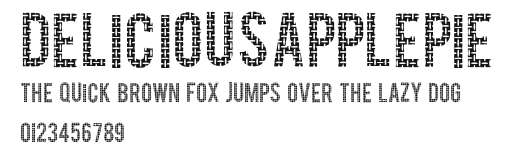
• Font Name: DeliciousApplepie
• Full Font Name: DeliciousApplepie
• Version: Version 1.00 April 2, 2012, initial release
• Character Count: 63
• Designer: max infeld
• Description: made in ojai
About DeliciousApplepie.ttf
DeliciousApplepie.ttf is a modern, elegant sans-serif font designed for ultimate readability and visual harmony. Perfect for branding, headlines, web design, and print materials.